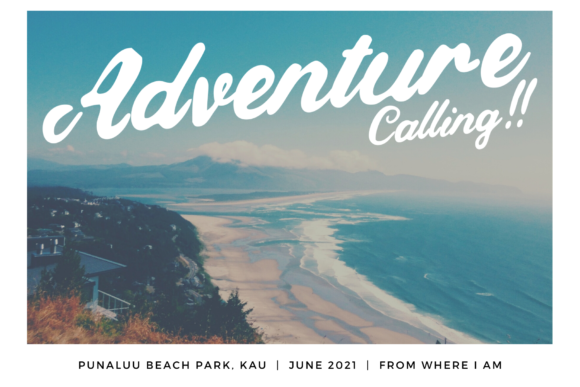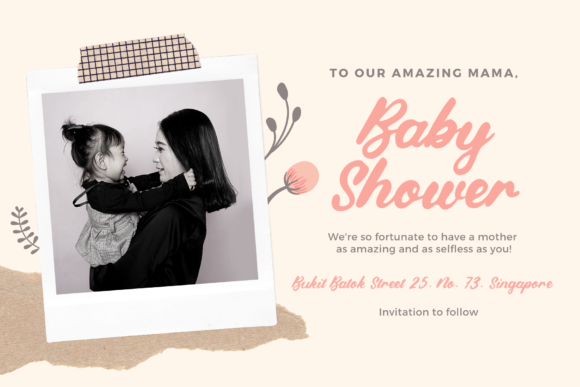
Bonitalia Font
db-ku.com - Script & Handwritten -- Bonitalia is a fun and bold hand-drawn script. Every single letter have been carefully crafted to make your text looks beautiful. Bonitalia is the perfect font for making original and outstanding designs.